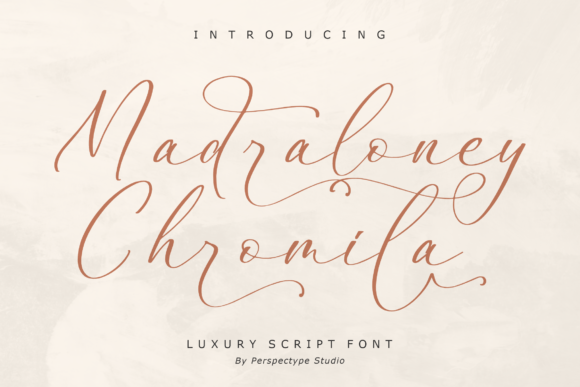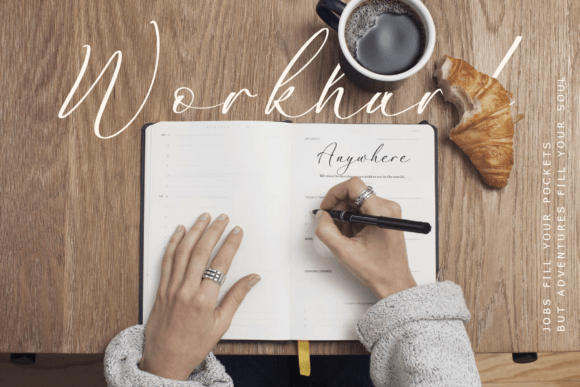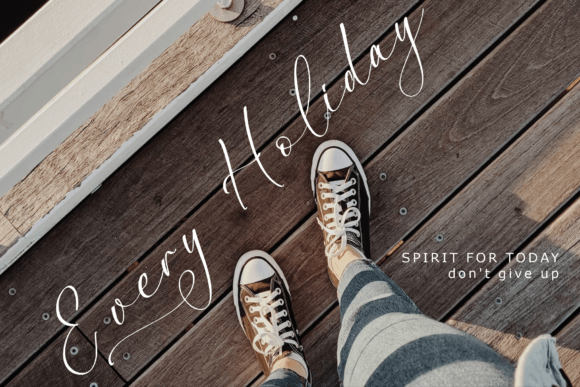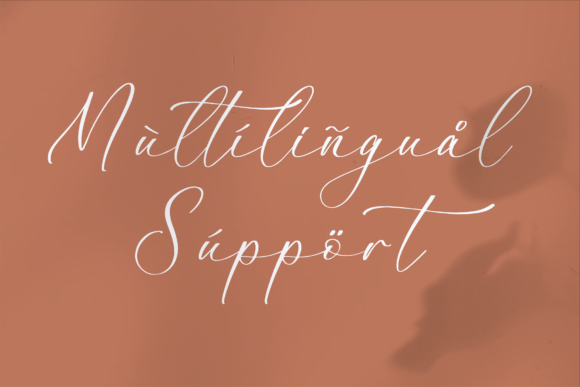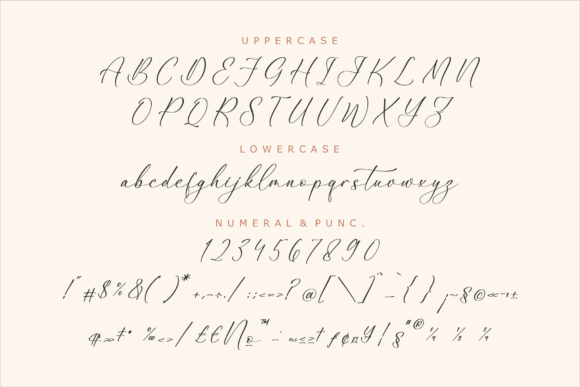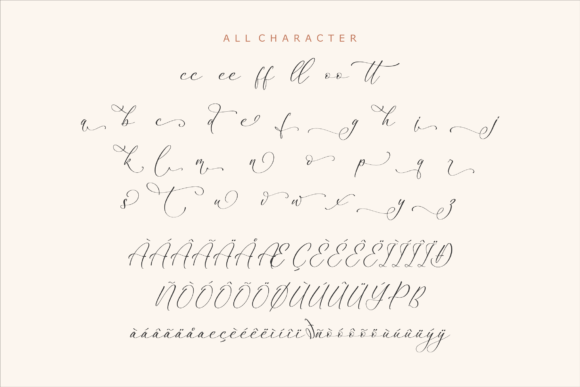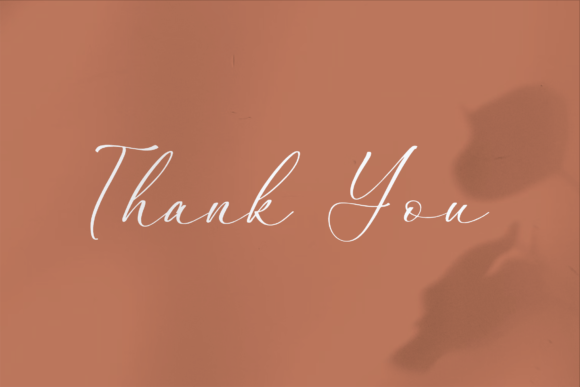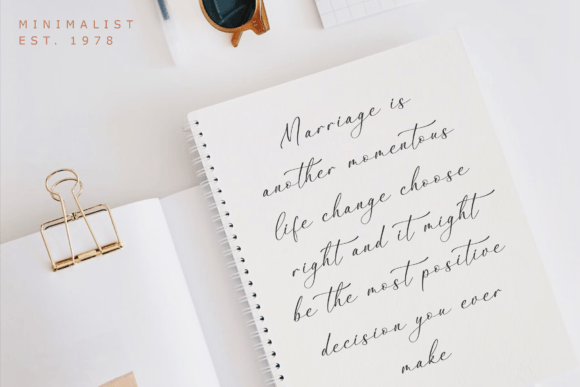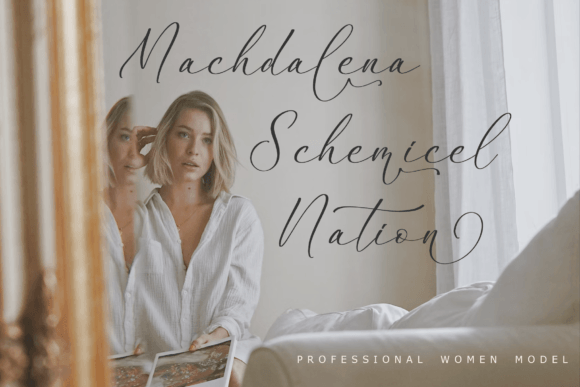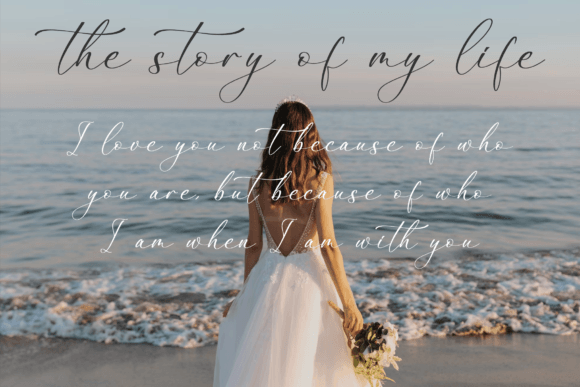
Madraloney Chromila Font
An Exquisite Handwritten Typeface with Classy Calligraphic Influences
Madraloney Chromila Font is an exquisite handwritten typeface designed to bring elegance, sophistication, and freshness to your designs. Masterfully crafted with classy calligraphic influences, this font is ideal for those looking for a contemporary and stylish handwritten look. Whether you’re working on branding, invitations, or social media content, Madraloney Chromila helps elevate your designs, adding a personalized, timeless touch that appeals to a wide audience.
Perfect for Wedding Invitations and Special Events
For wedding invitations and other special occasion stationery, the Madraloney Chromila Font is the perfect choice. Whether you’re designing RSVP cards, save-the-dates, or thank-you notes, this font adds a romantic, elegant touch to your designs. Its calligraphic strokes and refined appearance create a sense of luxury and sophistication, making it ideal for weddings, anniversaries, and other special celebrations. The Madraloney Chromila Font ensures your invitations and event materials stand out with a personalized, elegant appeal.
Great for Branding and Logos
For branding and logo designs, the Madraloney Chromila Font adds a unique, artistic flair to your business identity. Whether you’re designing a luxury brand logo, personal brand, or corporate identity, this font provides a perfect balance of elegance and modernity. The calligraphic influences help create a memorable, distinctive brand image that stands out in a crowded market. Whether you’re in fashion, luxury goods, or high-end services, the Madraloney Chromila Font ensures your brand feels both approachable and refined.
Ideal for Product Packaging and Labels
For product packaging and labels, the Madraloney Chromila Font offers an elegant and modern touch that enhances your products’ appeal. Whether you’re designing product labels, gift packaging, or seasonal items, this font helps make your products look premium and refined. Its exquisite handwritten design ensures your branding feels both luxurious and personalized, perfect for high-end brands and artisan products. The Madraloney Chromila Font adds sophistication to your packaging while maintaining an approachable and charming appearance.
Perfect for Social Media and Digital Content
For social media posts and digital content, the Madraloney Chromila Font brings a contemporary and artistic appeal to your designs. Whether you’re creating Instagram posts, Pinterest graphics, or Facebook promotions, this font enhances your content with a stylish, handwritten flair. Perfect for quote graphics, product promotions, or event announcements, the Madraloney Chromila Font helps your digital content feel both elegant and approachable. Its distinctive style ensures your posts grab attention while maintaining a high-end look.
Ideal for Greeting Cards and Invitations
The Madraloney Chromila Font is also perfect for greeting cards and invitations. Whether you’re designing birthday cards, holiday greetings, or special event invitations, this font gives your designs an artistic, personalized touch. Its elegant strokes and flowing nature ensure your cards feel both luxurious and heartfelt, perfect for personal or professional occasions. The Madraloney Chromila Font adds a beautiful handwritten style to your greeting cards and invitations, making them feel extra special.
Versatile, Legible, and Elegant
Despite its artistic handwritten design, the Madraloney Chromila Font remains legible and easy to use. Its well-spaced characters and consistent strokes ensure your text remains clear and readable, even in smaller sizes or for longer passages. Whether you’re using it for headlines, captions, or body text, this font strikes the perfect balance between creativity and readability, making it ideal for a wide range of design applications, from print to digital media.
The Madraloney Chromila Font is easy to use and integrates smoothly into most design software. Whether you’re working on logos, wedding invitations, social media content, or product packaging, this font ensures your designs look polished and professional while maintaining a personalized touch. Its versatility makes it perfect for both print and digital media, giving you the flexibility to use it across various projects with ease.
Add Elegance and Modern Charm to Your Designs with Madraloney Chromila Font
If you’re looking for a modern signature font that combines elegance, artistic flair, and a personalized touch, the Madraloney Chromila Font is the perfect choice. Whether you’re designing wedding invitations, logos, product packaging, or social media posts, this font will help you create memorable, high-end designs that stand out. Let the Madraloney Chromila Font add a stylish, contemporary touch to your projects and leave a lasting impression with its elegance and artistic appeal.